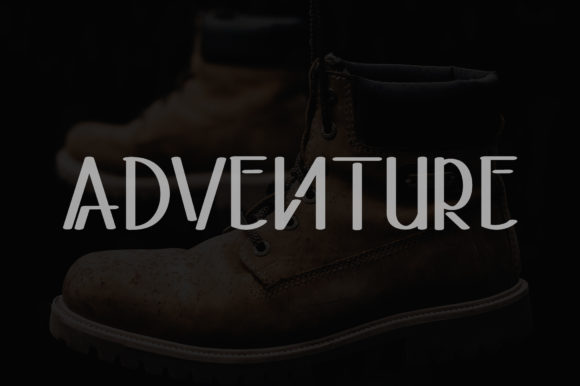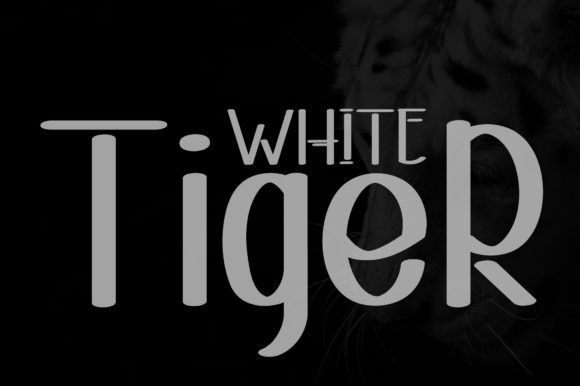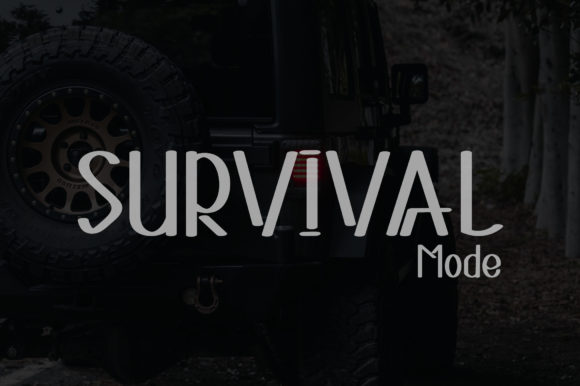
Introduction to Magic Line Font
Magic Line is a minimal and neat sans serif font.
Why Choose Magic Line Font?
Magic Line Font offers exceptional quality and versatility, making it a valuable addition to your design toolkit. Whether you’re creating for personal projects or commercial use, Magic Line Font delivers professional results.